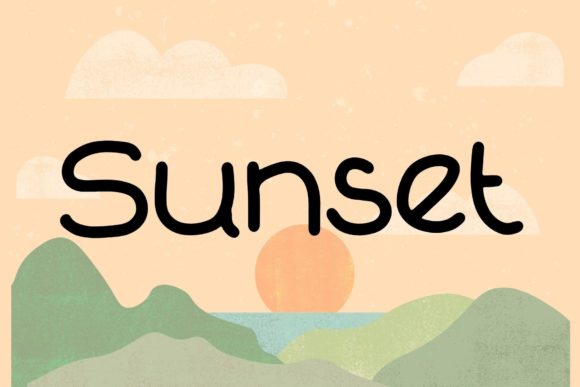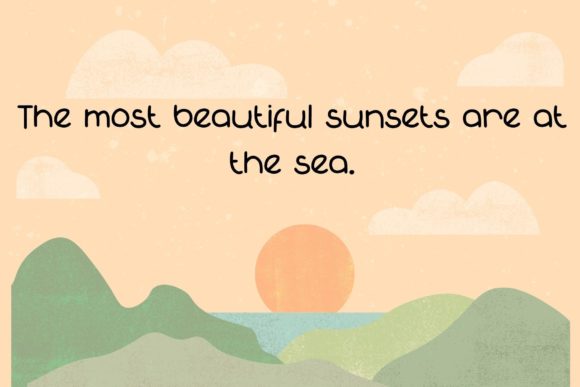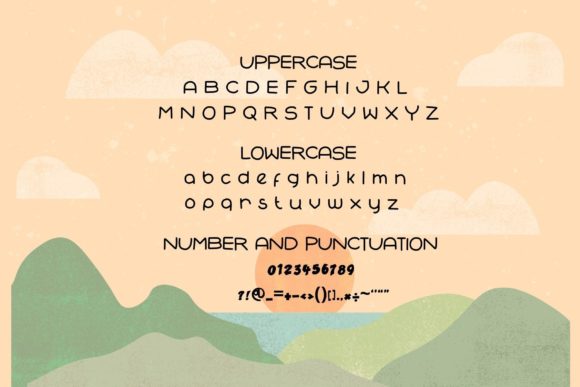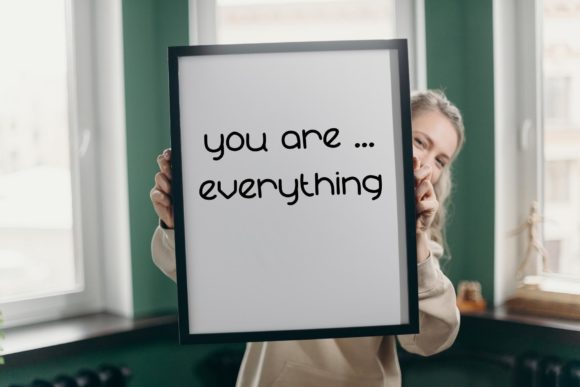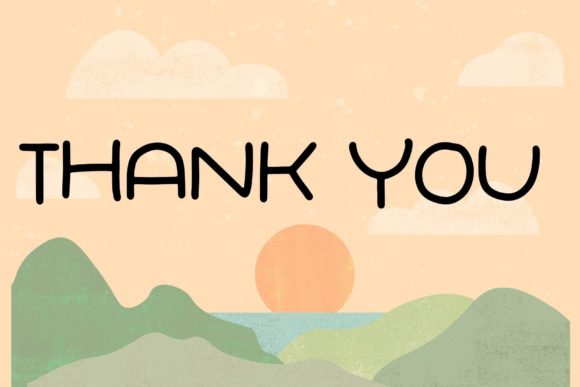
Sunset Font
About Sunset Font
**Sunset Font: A Chic Brushed Handwritten Elegance**
Dive into the allure of creativity with the “Sunset” font – a chic and paint-brushed handwritten typeface that emanates elegance. Capturing attention with its ravishing style, this font is a versatile tool for crafting stunning wedding invitations, exquisite stationary art, eye-catching social media posts, and beyond.
The strokes of “Sunset” exude a sense of chic sophistication, reminiscent of a carefully applied paintbrush. Its handwritten charm brings a touch of personal elegance to every curve and loop, making it a perfect choice for occasions where style meets emotion.
One of the prime applications of “Sunset” is in the realm of wedding invitations. Its chic and graceful demeanor adds a layer of sophistication to the invitation, setting the tone for a celebration of love that is as unique as the couple it represents. The font becomes an artistic brush, painting a picture of romance and refinement.
In the world of stationary art, “Sunset” transforms the ordinary into the extraordinary. From personalized notes to artistic prints, the font’s ravishing style elevates the visual experience, turning each piece into a work of art that speaks volumes about taste and creativity.
Social media platforms become a canvas for expression with the use of “Sunset.” Its eye-catching nature makes it ideal for crafting posts that stand out in a sea of content. Whether you’re promoting an event, sharing a quote, or showcasing your artistic endeavors, this font ensures that your message is delivered with style.
The versatility of “Sunset” extends beyond these examples. It seamlessly integrates into a spectrum of design projects, providing a touch of handwritten elegance to each endeavor.
Picture “Sunset” as the brushstroke that adds finesse to your creative expressions. It’s not just a font; it’s an invitation to infuse your designs with chic sophistication, creating visuals that leave a lasting impression. So, whether you’re planning a wedding, curating stationary art, or crafting social media content, let “Sunset” be the brush that paints your creative vision with elegance and charm.